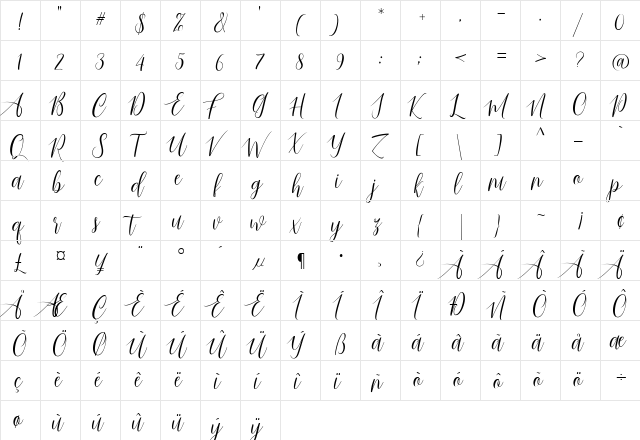
Just Married Regular
| Designer | Chaidir |
Design Context for Just Married Typeface
Just Married is a composed and adaptable typeface that performs quietly and consistently across a wide range of design contexts.